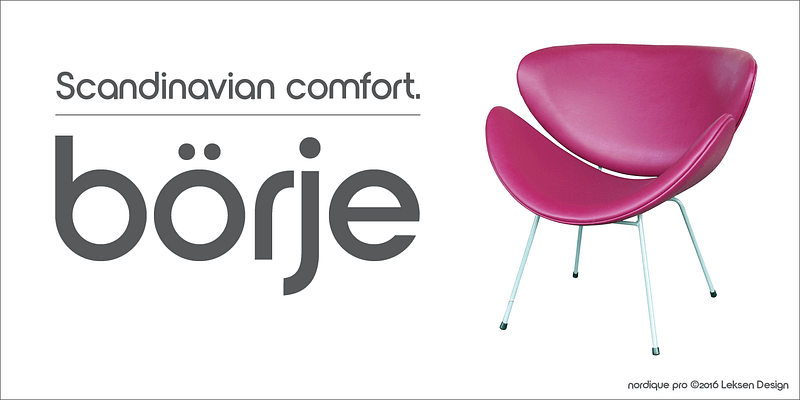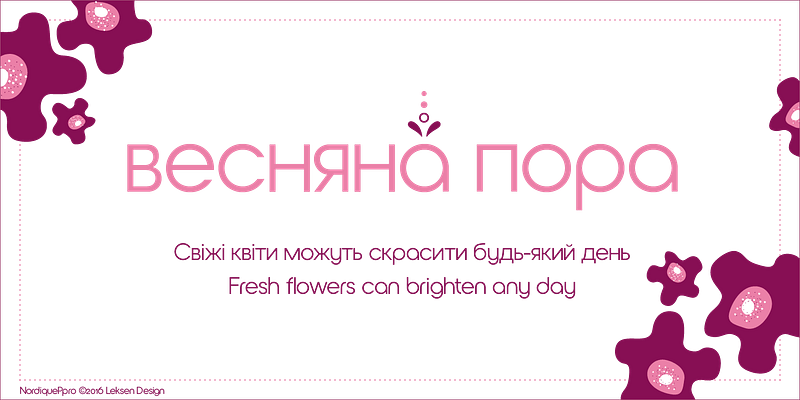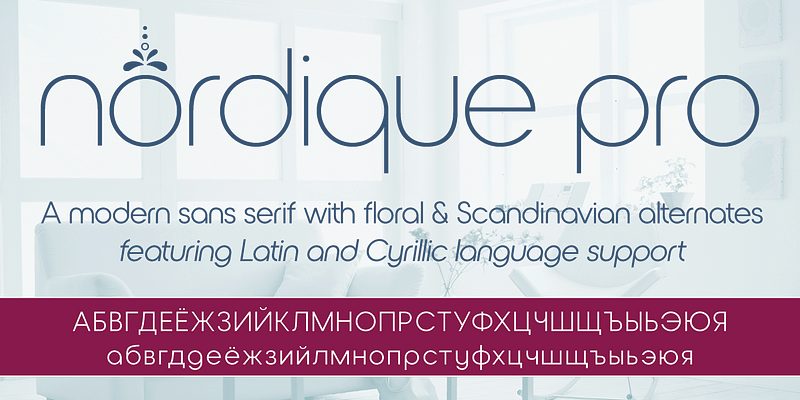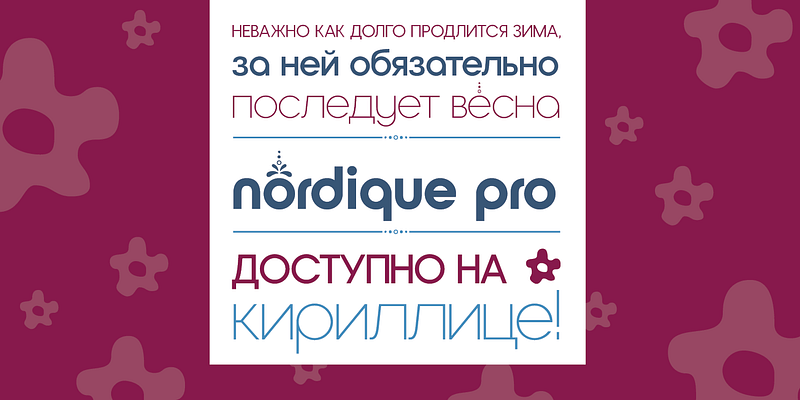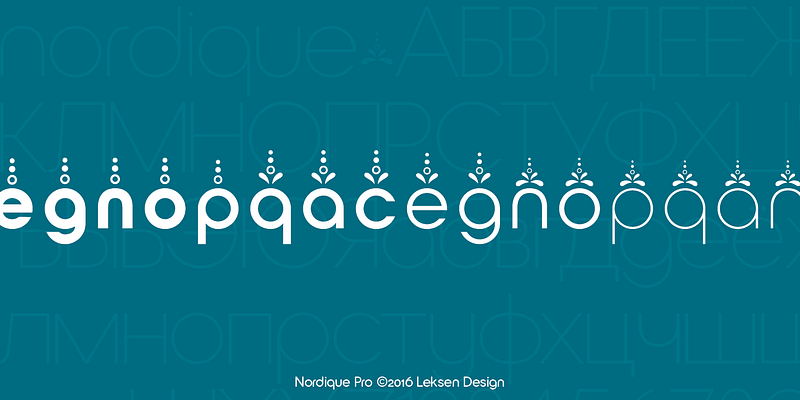
Inspired by her Swedish and Norwegian heritage, Andrea Leksen created this modern geometric sans serif reminiscent of Scandinavian design and typography. With its tall x-height, Nordique will be best showcased at large sizes, in headlines and other display uses. Each font contains over 50 ornaments, swashes, alternates and borders to play with—a modern take on the traditional rosemåling and kurbits painting styles.